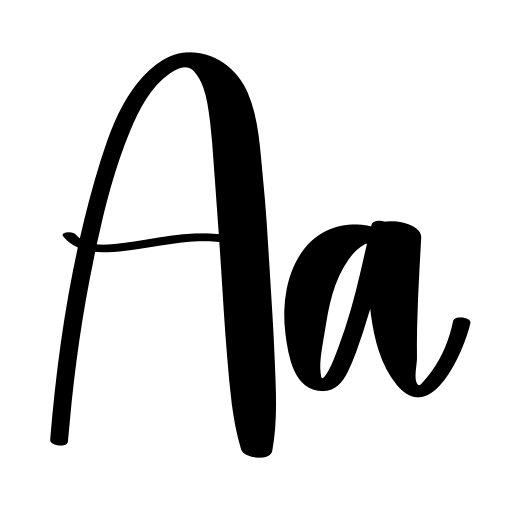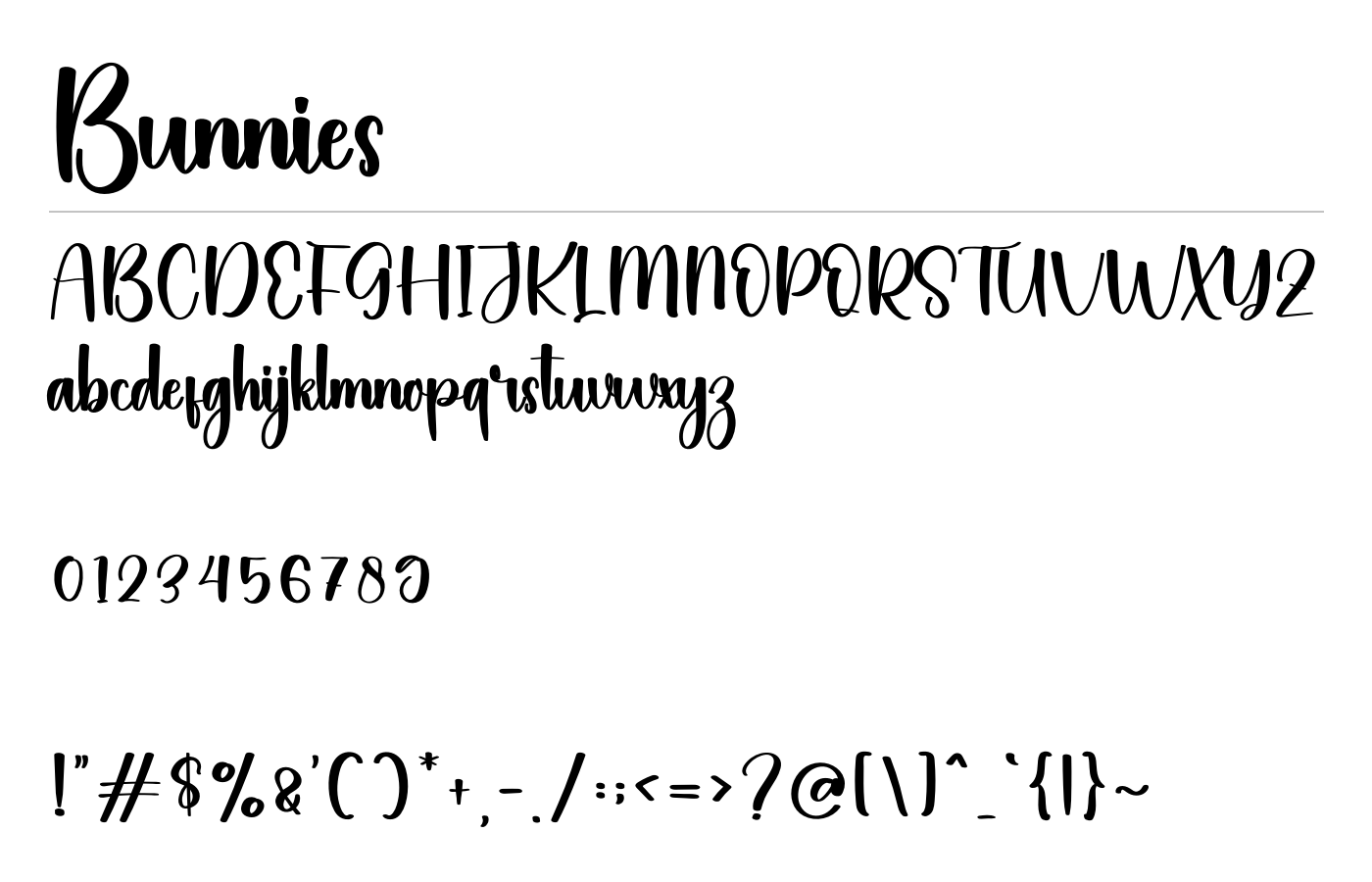
Bunnies Font is a playful and charming script typeface featuring a mix of bold, brush-style lowercase letters and tall, thin uppercase characters that give it a hand-lettered feel. Its lively, casual strokes and friendly curves make it perfect for creative projects that want to convey warmth and personality, such as invitations, branding, and social media graphics. This font works best in headlines or display use where a fun and approachable tone is desired.
Bunnies Font